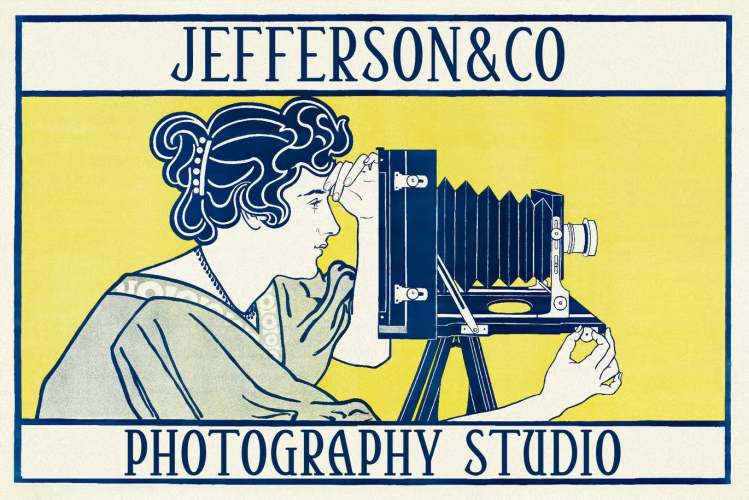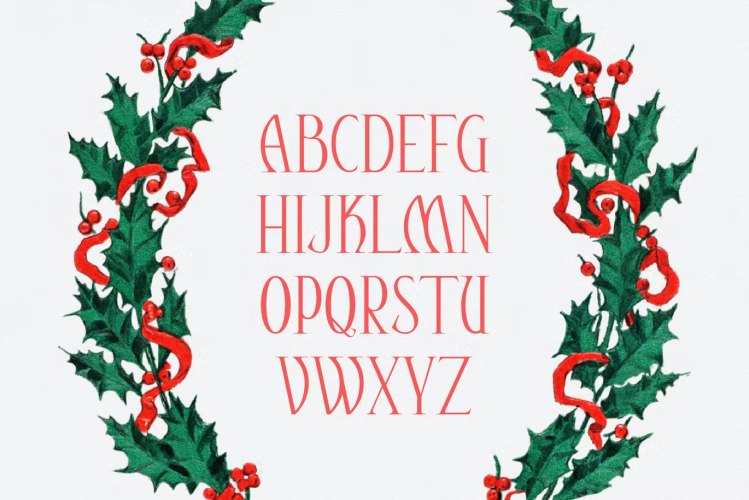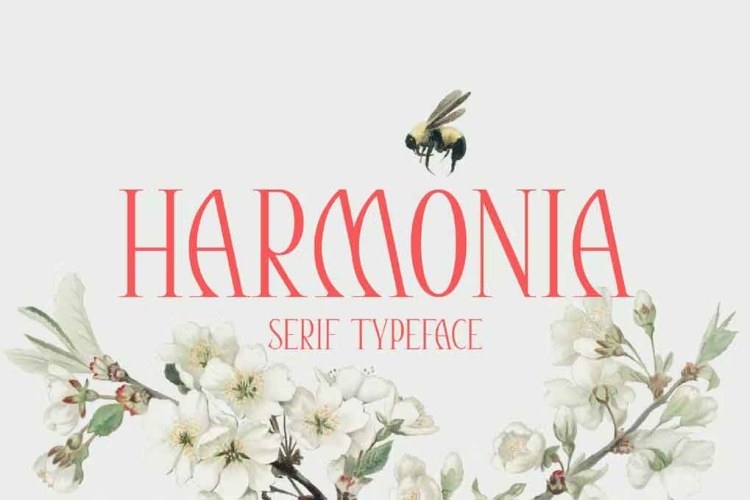
Harmonia Elegant Serif Font
Harmonia is a serif typeface that is clean, delicate, elegant, classic, and most importantly timeless. Harmonia can be used in high-end branding, art quotes, home decor,…
Harmonia is a serif typeface that is clean, delicate, elegant, classic, and most importantly timeless. Harmonia can be used in high-end branding, art quotes, home decor, book covers, special events, magazines, product packaging, invitations, and much more.
Harmonia is suitable for a wide array of design applications. The only limit is your imagination. Enjoy!
Where Harmonia Elegant Serif Font works best
Reports, white papers and book interiors hold the eye longer when the text face has real serifs; Harmonia Elegant Serif Font keeps that rhythm without looking old-fashioned.
Food, spirits and cosmetics brands lean on serif wordmarks to suggest age and care. Harmonia Elegant Serif Font gives that signal at wordmark size.
Set Harmonia Elegant Serif Font for the body of an award or a diploma and keep the recipient name in a script; the pairing is what makes a document feel official.
What kind of work does Harmonia Elegant Serif Font suit?
It sits in the Serif Fonts group and reads as branding, classic, clean, elegant. That makes it a candidate wherever those qualities help: headings, packaging, social graphics and brand work. Set it at the size you plan to use before deciding.